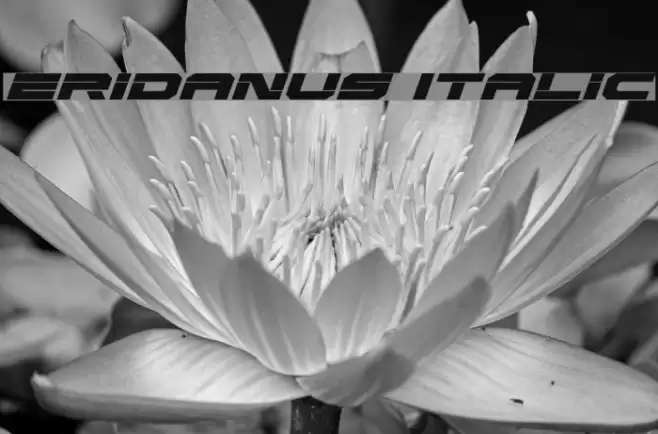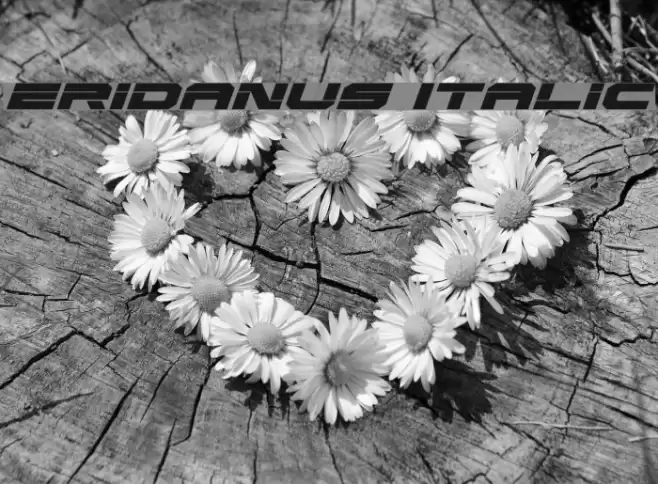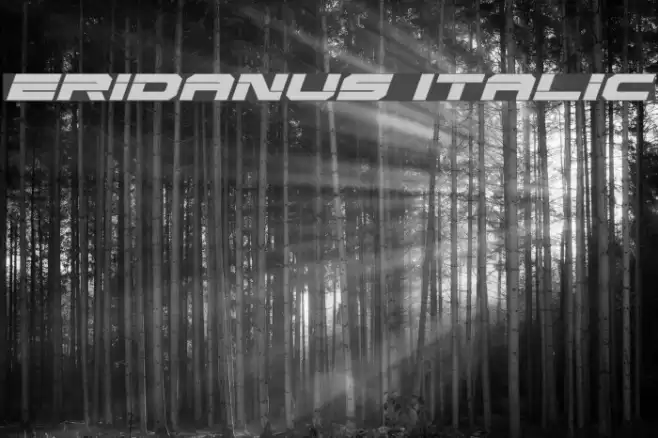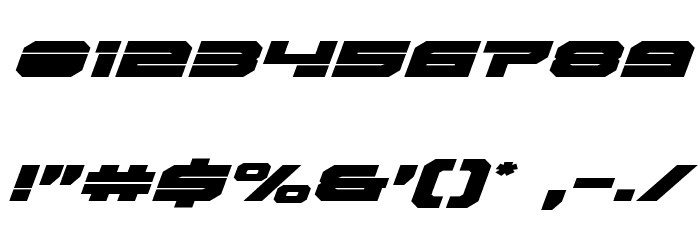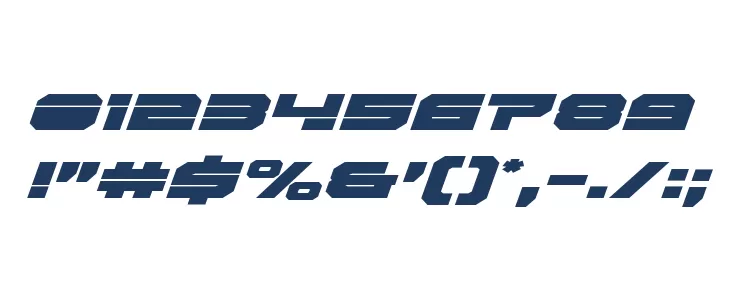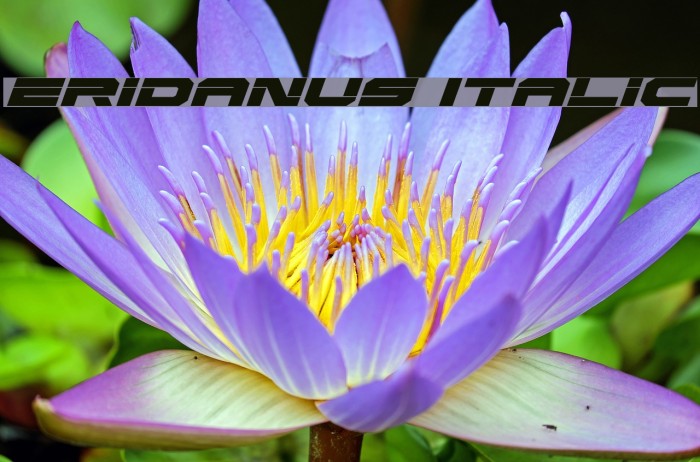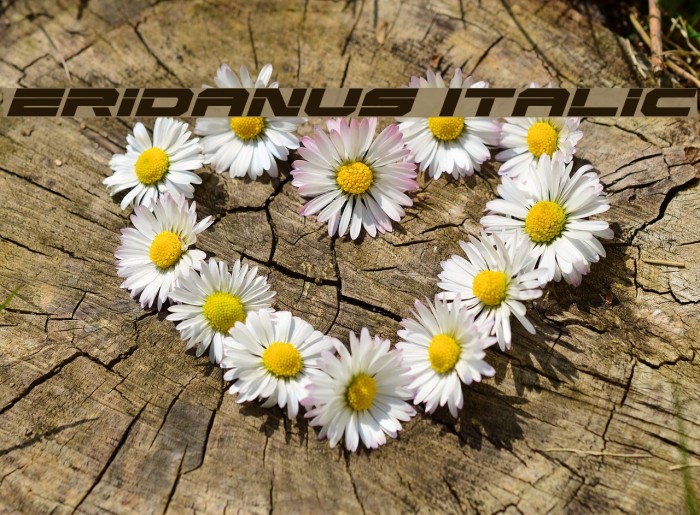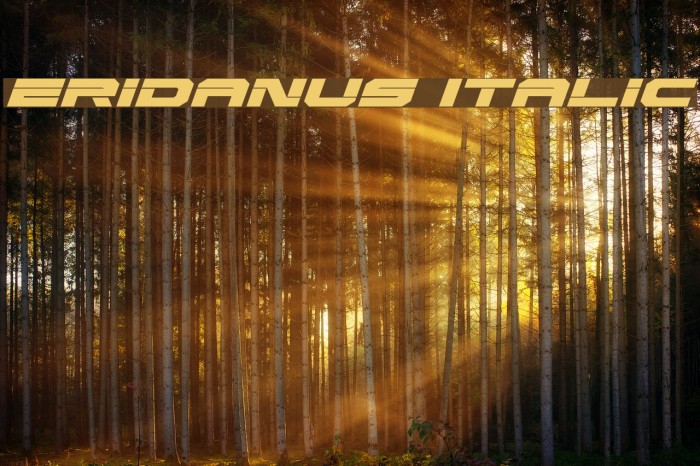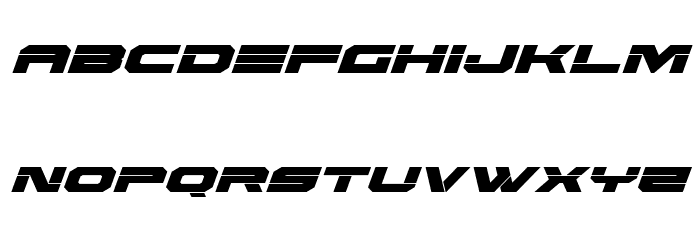
Eridanus Italic Font
Eridanus Italic Description
This font features a futuristic and dynamic design, characterized by its sharp angles and geometric shapes. The italic style adds a sense of motion and speed, making it ideal for modern and tech-oriented projects. The uppercase letters are bold and impactful, while the numbers and special characters maintain the same angular aesthetic. The overall appearance is sleek and cutting-edge, suitable for conveying innovation and forward-thinking concepts.
A futuristic, italic font with sharp angles and a dynamic style from Uncategorized fonts.
- Proposed Projects: Ideal for technology branding, sci-fi movie posters, video game titles, and modern advertising.